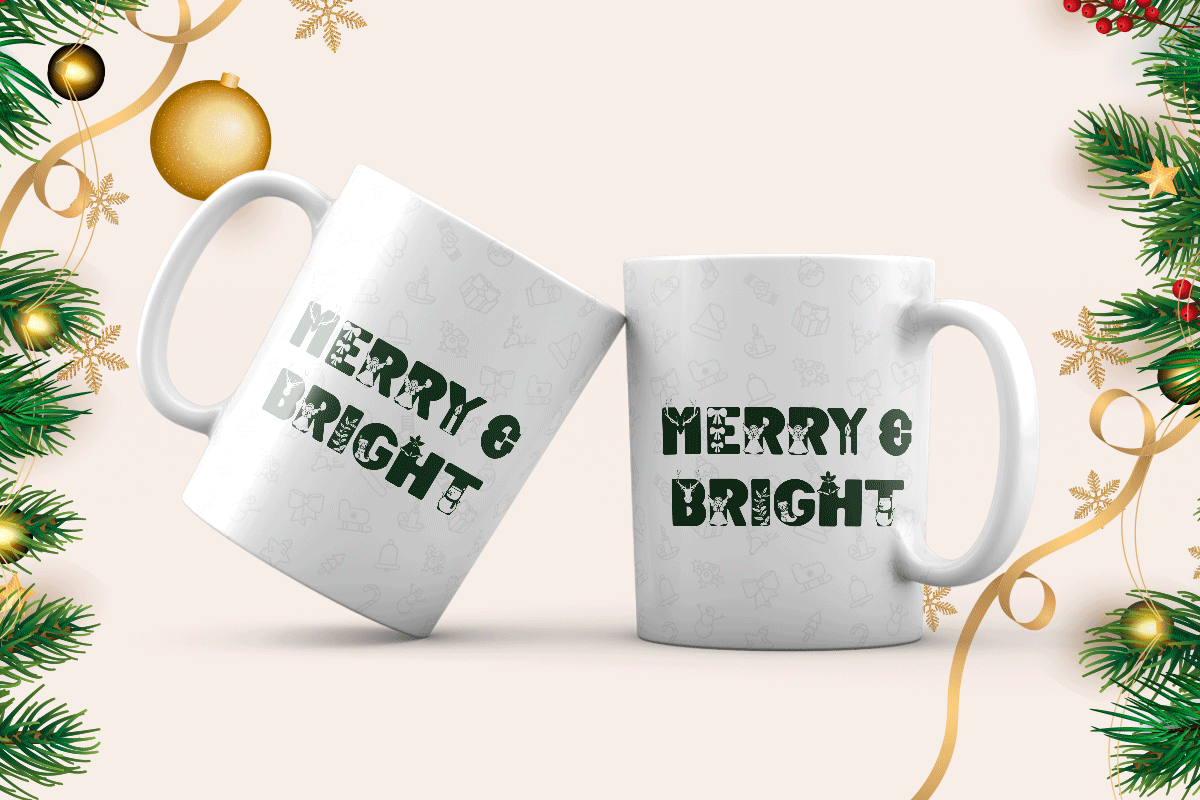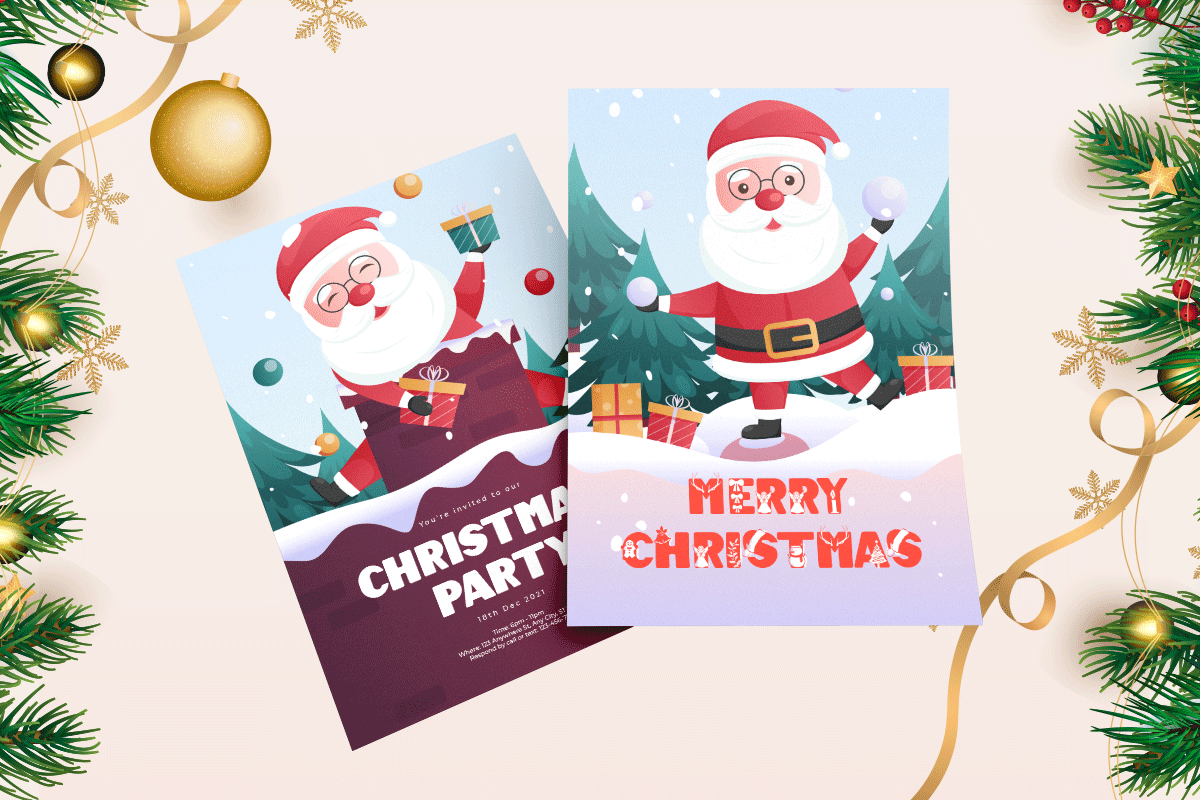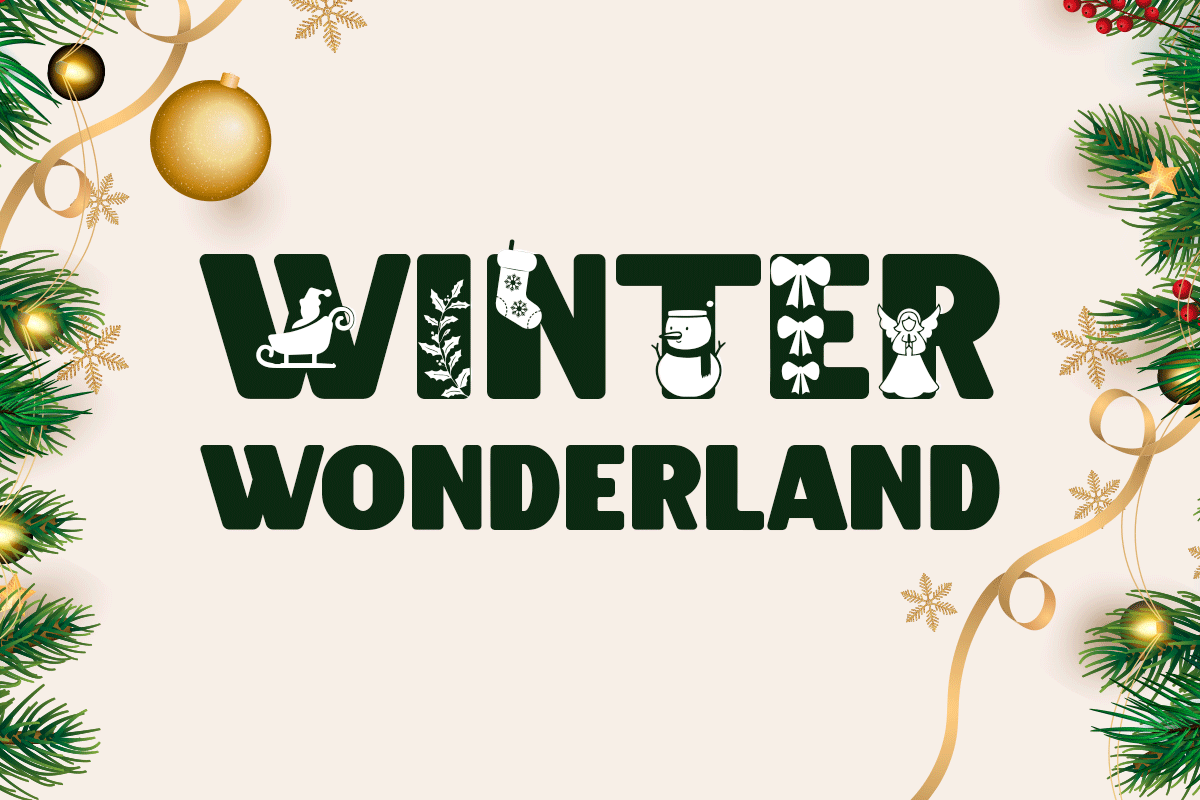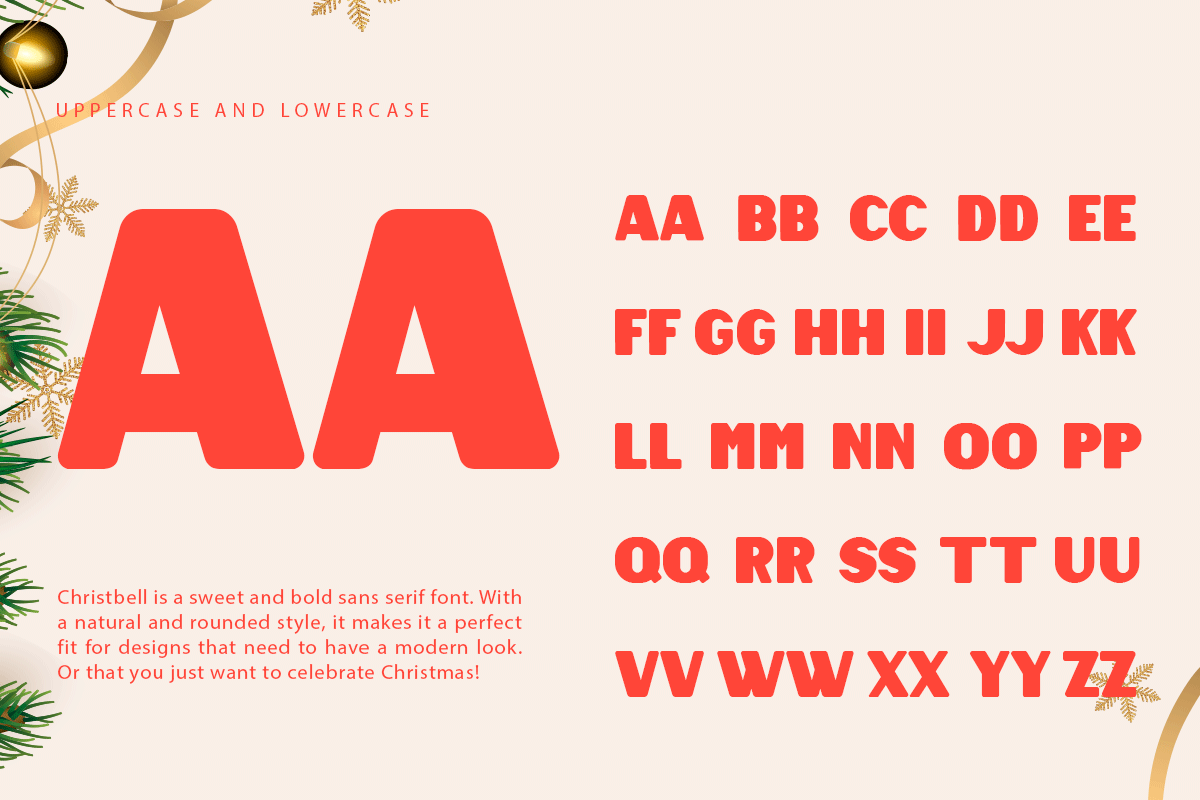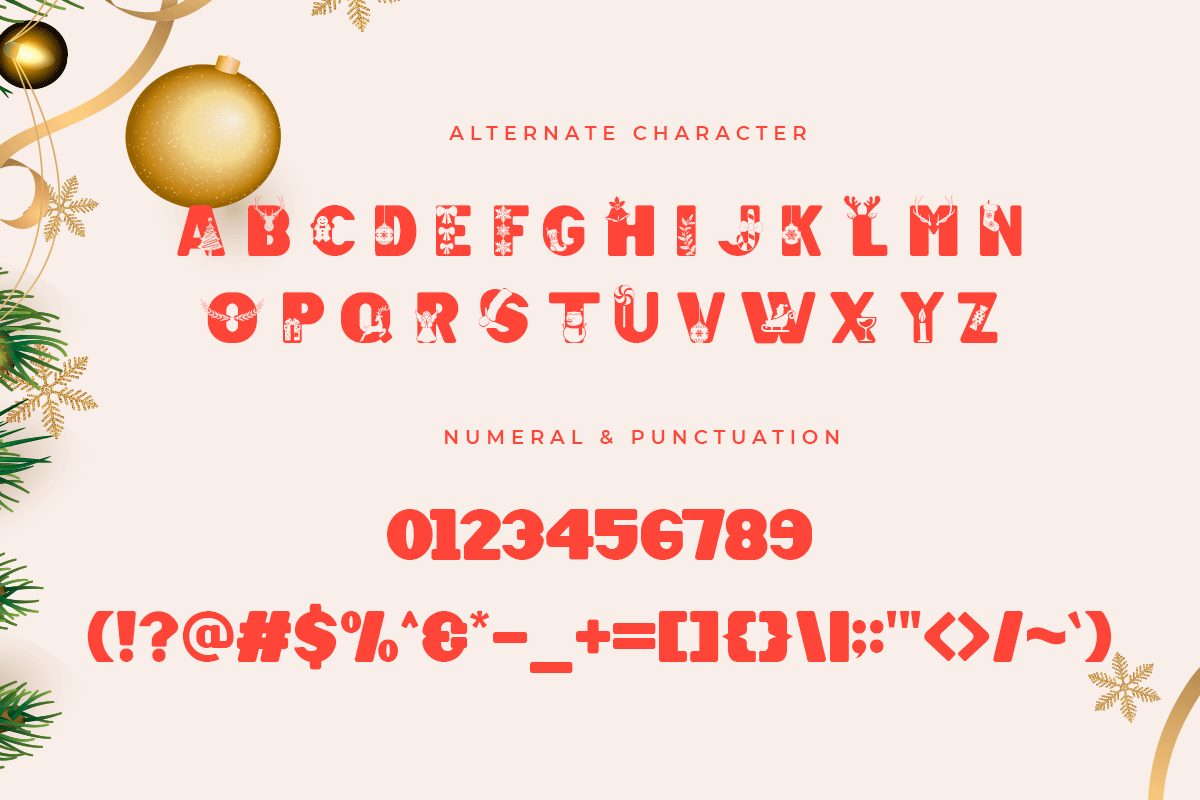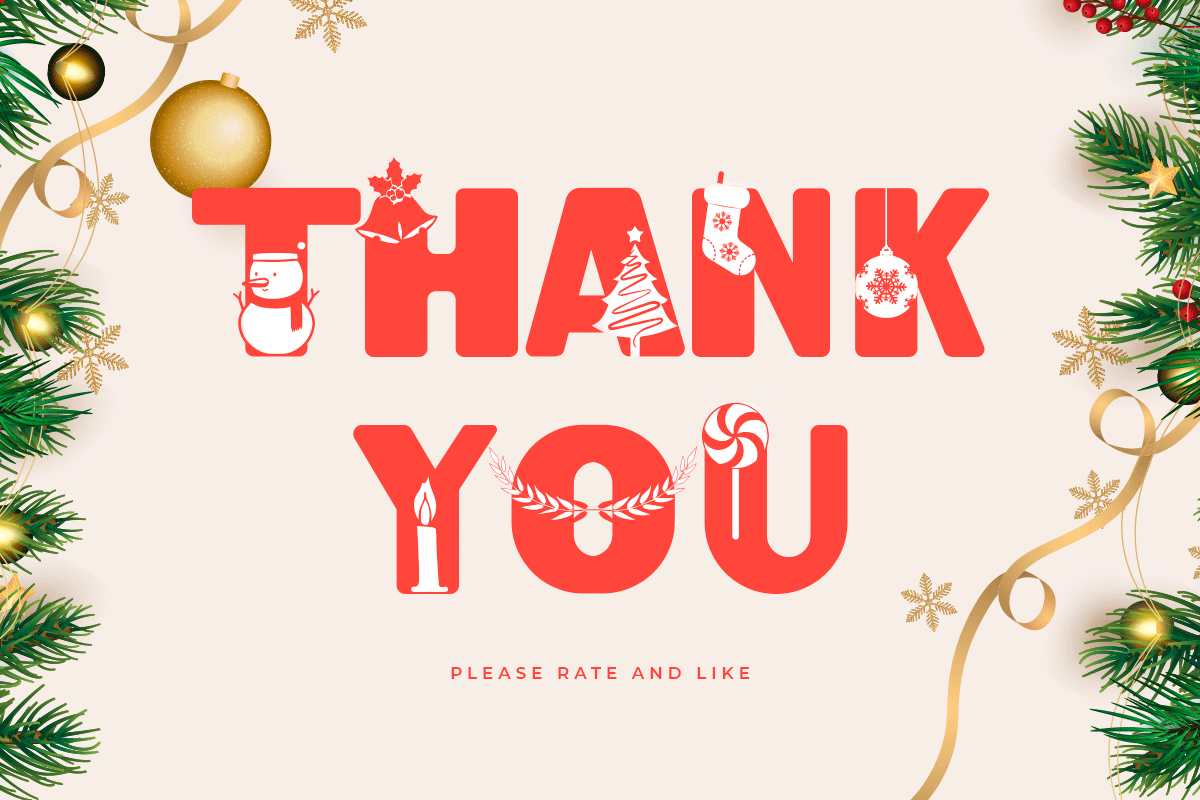
Christbell Christmas Theme Font is a part of the display fonts. This font is one of the best collections of Christmas fonts that you can check out on the Kong Font website. This font has unique characteristics, is beautiful, and looks fun. Also, we can see how Christbell Christmas Theme Font is in illegible font. This font has some Christmas decorations in the shape.
The characteristics description of Christbell Christmas Theme Font above shows how this font looks so unique and cute. The unique characteristic is the difference between the Christbell Christmas Theme Font and other fonts. This font can be used with small or large font sizes.
The excellent impression and characteristics of Christbell Christmas Theme Font can make it one of the best Christmas fonts that can be used for clothing item designs such as writing on hoodies, t-shirts, and hats. Snow Boom font can be used for a logo that has a Christmas or cartoon theme.